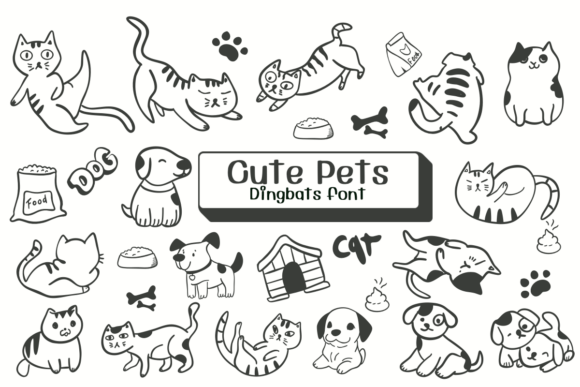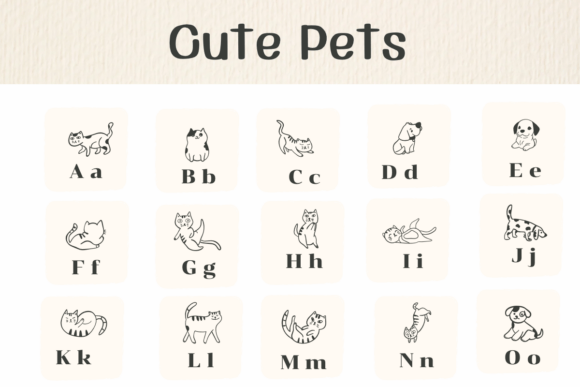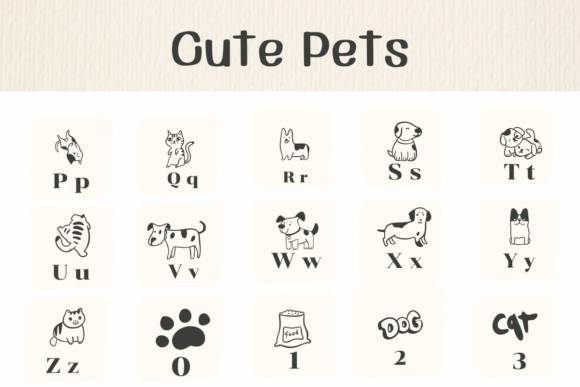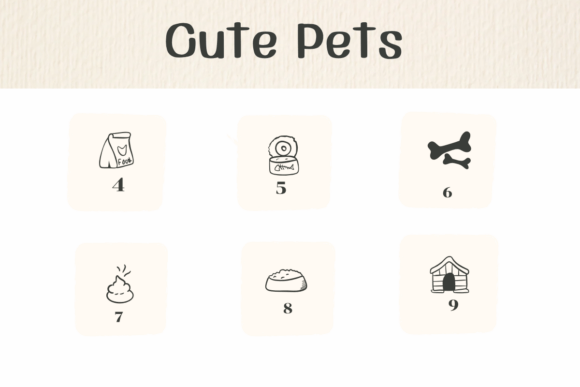
Cute Pets Font
About the Cute Pets Font
Unleash your creativity with Cute Pets Font, a versatile font perfect for a wide range of applications. Cute Pets is a dingbats font with a heartwarming theme. This font can enhance your creative projects such as wedding invitations, DIY, crafts, decorations, logos, and many other creative ideas.
Cute Pets excels in projects requiring a lighthearted and approachable aesthetic. It’s ideal for branding focused on pet-related businesses, children’s products, or crafting projects where a playful touch is desired. Use it effectively in logos, short headlines, and decorative elements on packaging or invitations. Avoid using it for large bodies of text or UI elements; its whimsical nature isn’t suitable for readability in extended paragraphs.
Pairing Cute Pets with a clean sans-serif like Open Sans for body copy creates a balanced design. For a more sophisticated look, consider pairing it with a classic serif like Garamond for headings alongside the dingbats. Alternatively, a simple geometric sans-serif like Montserrat can provide modern contrast, enhancing the font’s playful energy.
The overall personality of Cute Pets is undeniably friendly and whimsical. Its charm stems from its illustrative nature, making it perfect for conveying warmth and affection in the appropriate design contexts.
Cute Pets Font Usage Examples
Cute Pets Font Example